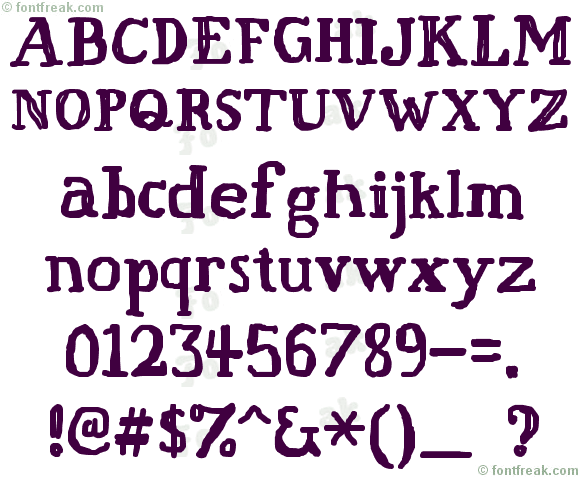
Fat Finger
The Fat Finger font, designed by Matthew Welch in 1998, is a striking decorative typeface that captures attention with its bold, playful aesthetic. This freeware font features a unique style characterized by its thick, exaggerated strokes and irregular, block-like shapes. The heavy weight of the letters lends a sense of sturdiness, while the subtle variations in stroke width add an engaging visual interest. The spacing between characters is generous, making it easy to read at various sizes, which enhances its versatility.
Due to its distinctive appearance, the Fat Finger font is particularly well-suited for a range of creative applications. It shines in environments where fun and whimsy are essential, making it an excellent choice for designing eye-catching restaurant menus, vibrant party invitations, or engaging movie posters. Additionally, its playful nature can bring a unique charm to branding materials for small businesses targeting a youthful demographic, such as cafes or boutique shops. Graphic designers and content creators will find this font an invaluable tool for projects that require a bold statement without sacrificing readability.
The target audience for the Fat Finger font includes graphic designers looking to infuse their work with personality, small business owners seeking to create memorable visual identities, and content creators aiming to capture attention in an increasingly crowded digital landscape.
What sets the Fat Finger font apart is its ability to blend fun with functionality. It stands out not only for its visual appeal but also for its adaptability across various mediums. Whether used in print or digital formats, the Fat Finger font free download offers an exciting opportunity to enhance any design project with a touch of character and flair.